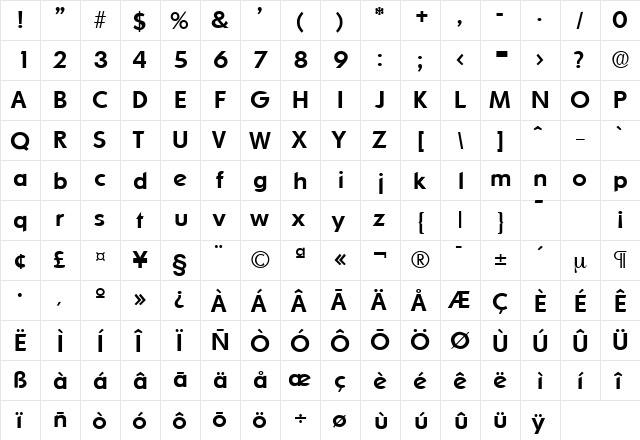
Ornitons-Serial-Medium Regular
Design Context for Ornitons-Serial-Medium Typeface
Ornitons-Serial-Medium is a composed and adaptable typeface that performs quietly and consistently across a wide range of design contexts.